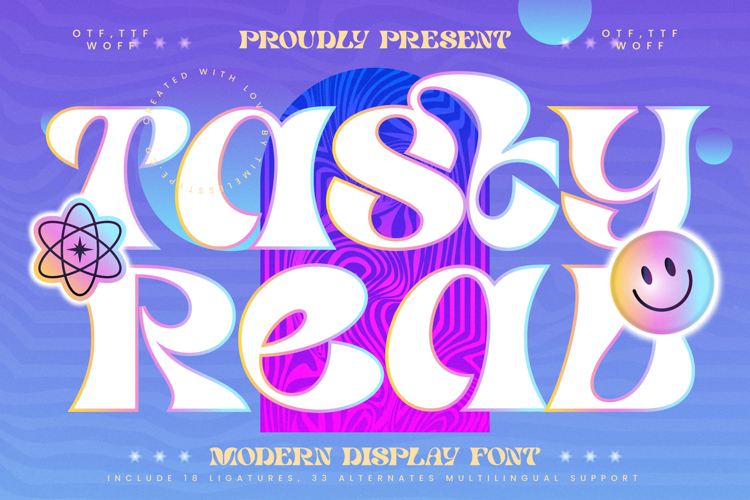
Tasty Real - Modern Display Font
The Tasty Real Typeface is a modern display font with a playful, colorful style and a vibrant retro-futuristic energy. Featuring 18 ligatures and 33 stylistic alternates, this font gives designers the freedom to create typography that is unique, expressive, and full of variety. Its bold letterforms with groovy retro touches combined with a modern flair make it perfect for designs that want to appear fun, fresh, and full of color.
This typeface is highly effective in editorial design, especially for lifestyle magazines, artistic zines, and creative book covers. The ligatures and alternates allow for visual exploration, ensuring every layout feels dynamic and eye-catching.
In branding and packaging, Tasty Real is ideal for youth products, food & beverages, creative merchandise, streetwear fashion, and digital goods. Its playful and bold character builds a cheerful yet memorable brand identity.
For entertainment and promotional design, this font works beautifully on music festival posters, album covers, event branding, and pop culture campaigns. Its colorful, groovy design adds visual appeal that is both fun and striking.
In the realm of digital design, Tasty Real performs exceptionally well across social media content, interactive websites, digital advertising, and motion graphics, where its bold shapes and lively vibe ensure strong visibility. With multilingual support, it is also ready for global projects.
In short, Tasty Real Typeface is a modern display font designed to bring retro-futuristic charm, playfulness, and positive energy. Perfect for editorial, branding, packaging, entertainment, advertising, and digital campaigns, this font transforms typography into a bright, unique, and character-rich design element.